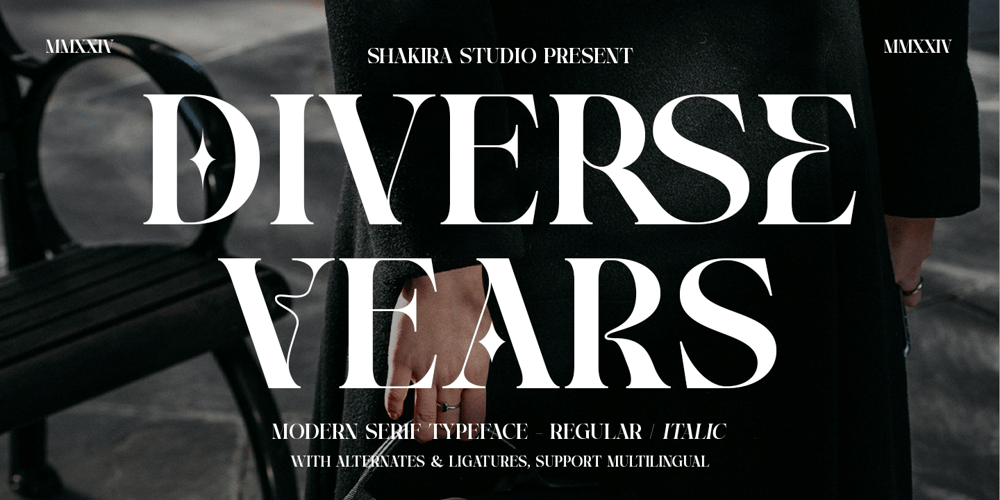
Diverse Vears Font Family was designed by Idhham Cholid Rikzano Yahya and published by Shakira Studio. Diverse Vears contains 2 styles and family package options. Diverse Vears is a modern serif typeface available in regular and italic styles. Combining luxury and elegance, this font offers stylish alternates and ligatures to elevate your designs. Perfect for branding, editorial layouts, logos, and more, Diverse Vears adds a sophisticated touch to any project. Let your creativity shine with this versatile and timeless typeface.Here’s what you get: Regular & Italic All Multilingual symbol Opentype features ( ligature, alternate ) Accessible in the Adobe Illustrator, Adobe Photoshop, Adobe InDesign, even work on Microsoft Word. PUA Encoded Characters – Fully accessible without additional design software. Multilingual character supports : (Afrikaans, Albanian, Catalan, Croatian, Czech, Danish, Dutch, English, Estonian, Finnish, French, German, Hungarian, Icelandic, Italian, Lithuanian, Maltese, Norwegian, Polish, Portuguese, Slovenian, Spanish, Swedish, Turkish, Zulu)Follow my shop for upcoming updates, and for more of my work, If you need a custom license or have questions please visit our website: www.shakirastudio.comThank you!Shakira Studio